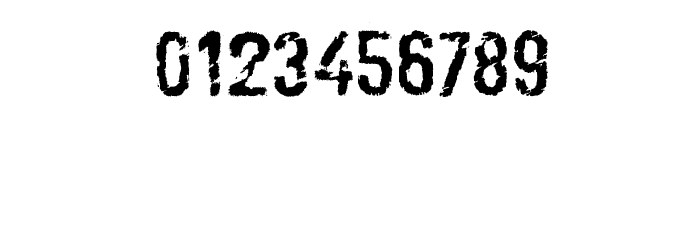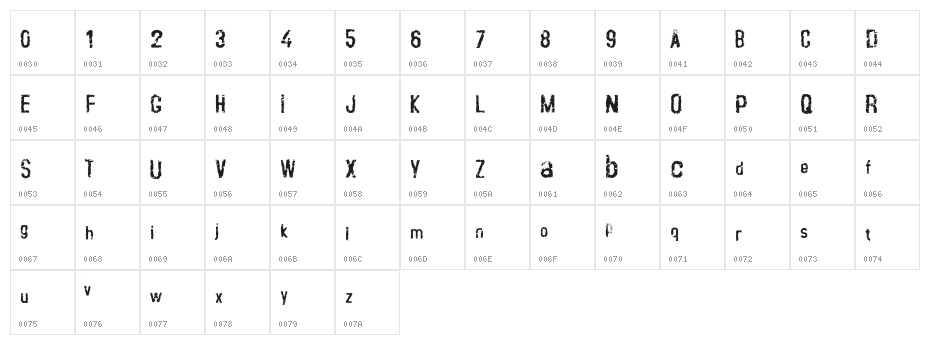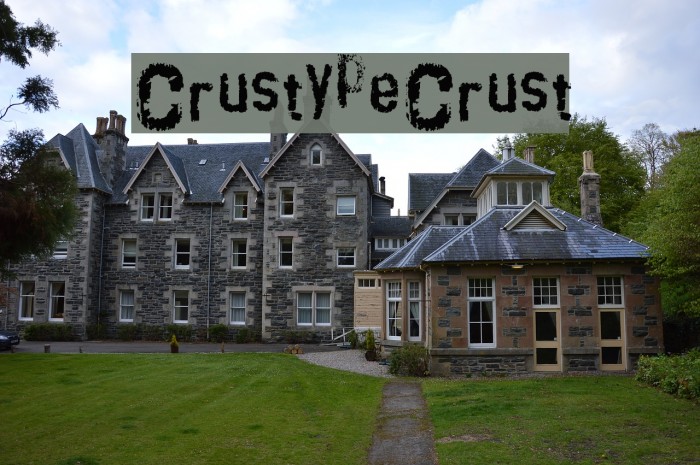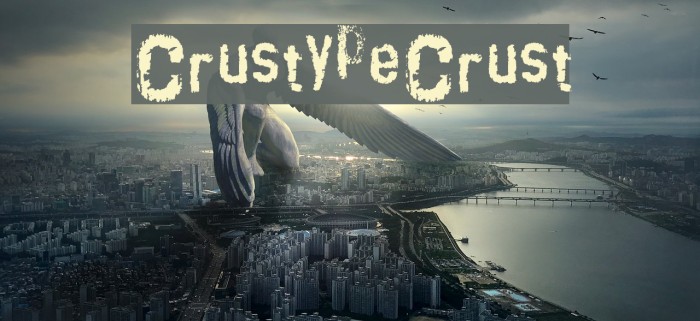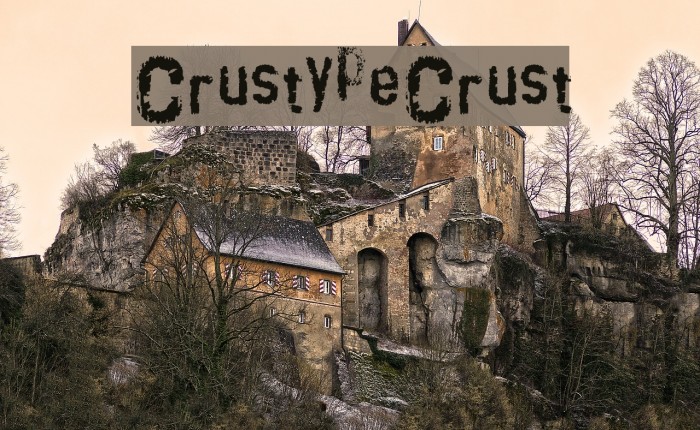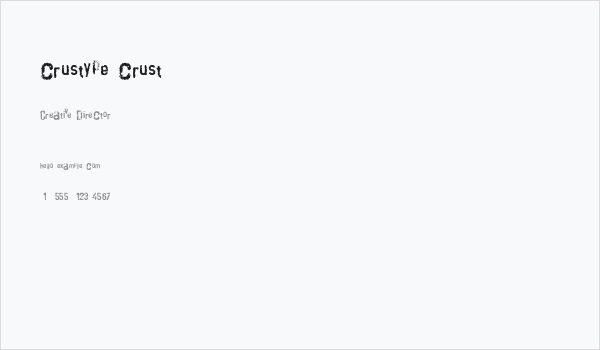
crustype_crust Font
crustype_crust Description
This font features a distressed, textured appearance that gives it a rugged and worn look. The characters are bold and display a rough, uneven edge, reminiscent of vintage printing techniques or weathered surfaces. The uppercase and lowercase letters maintain a consistent style, with each character exhibiting unique imperfections that add to the overall aesthetic. Numbers and special characters follow the same design, ensuring uniformity across all glyphs. This font is ideal for projects that require a grunge or industrial feel, offering a strong visual impact.
A distressed, textured font with a rugged, vintage appearance from Distorted Eroded fonts.
- Proposed Projects: Ideal for posters, album covers, branding for edgy or alternative products, and any design needing a grunge or industrial vibe.
- Overall Style: Vintage